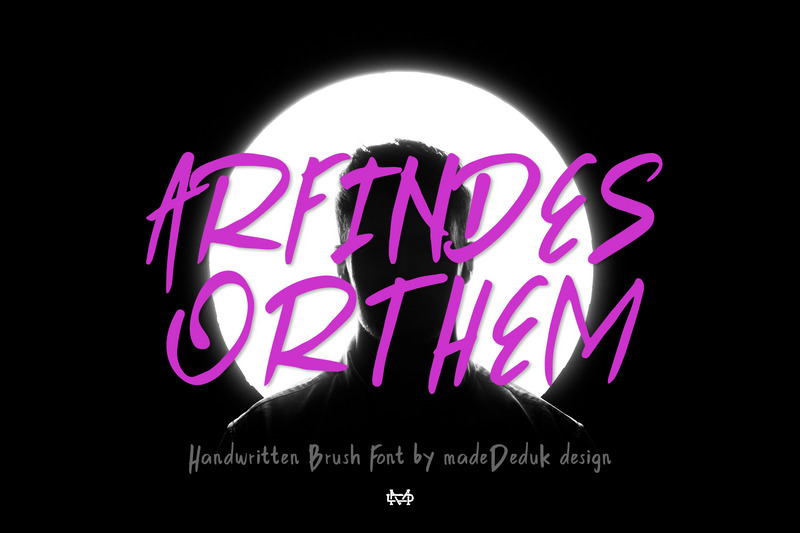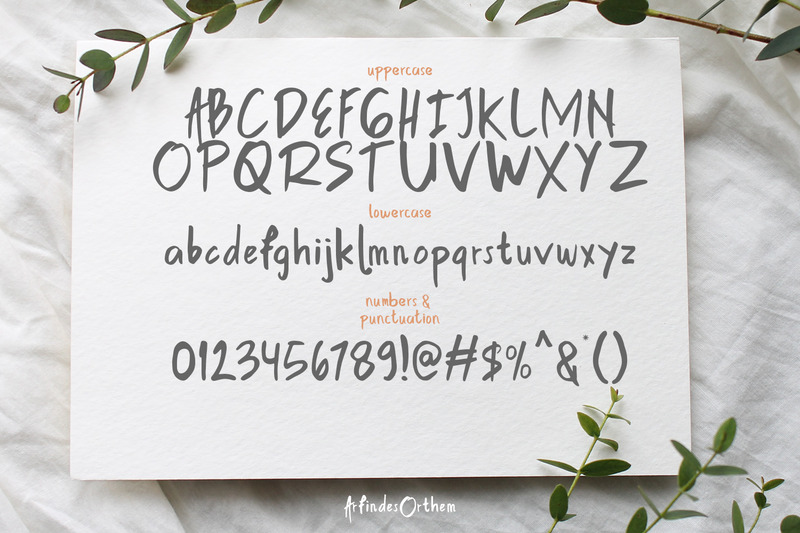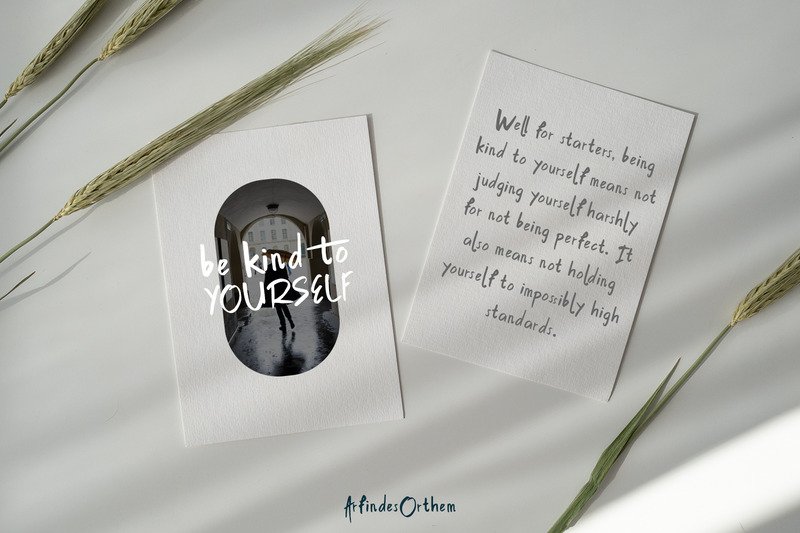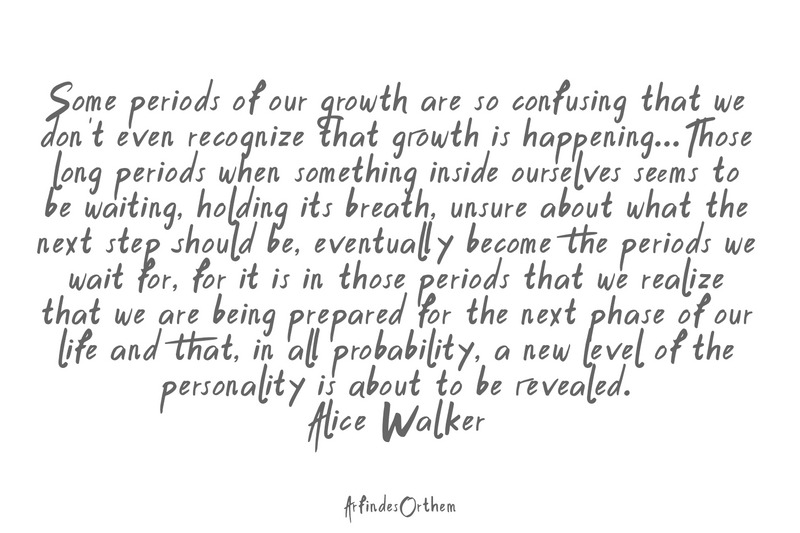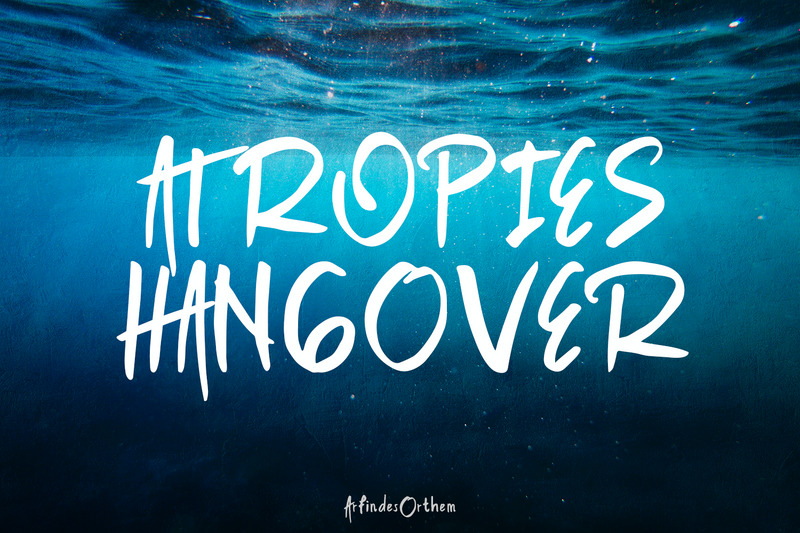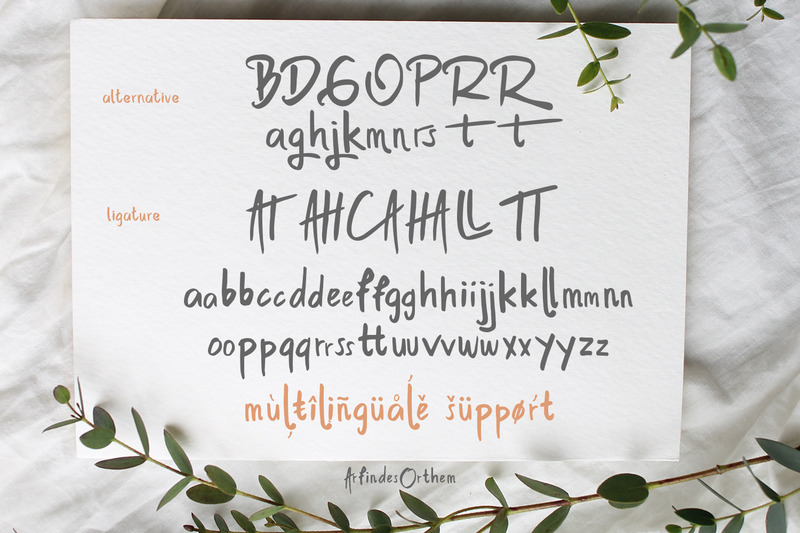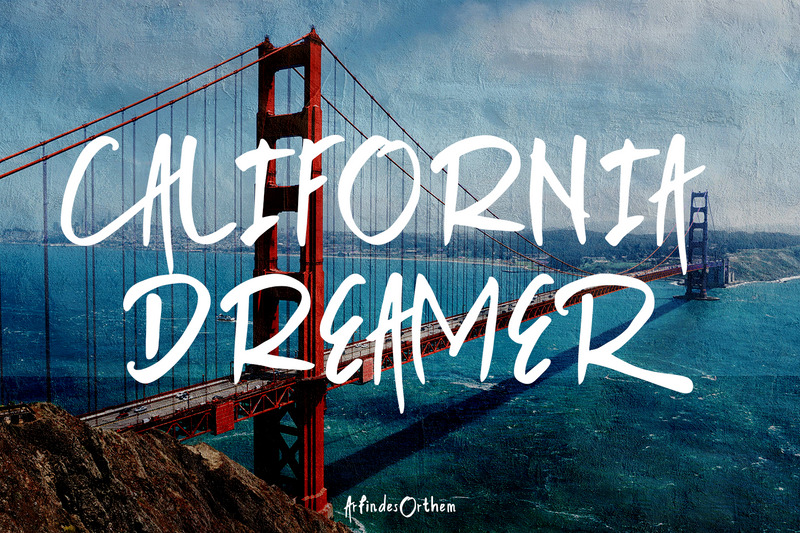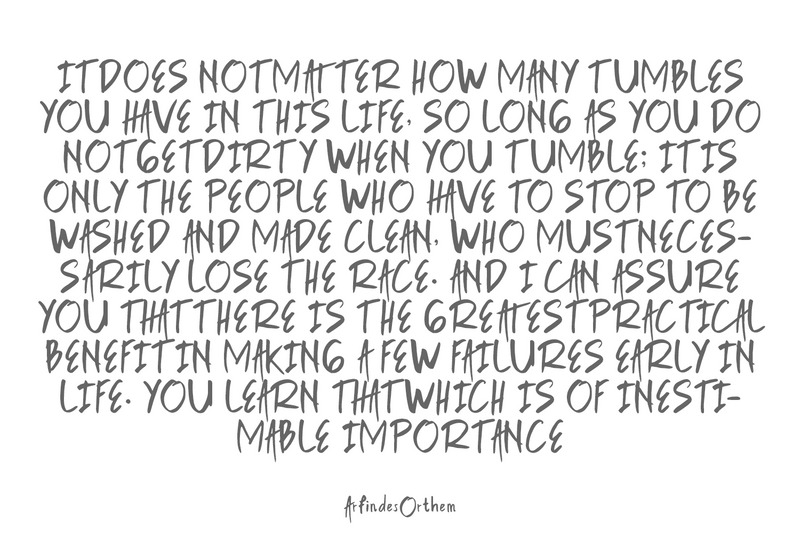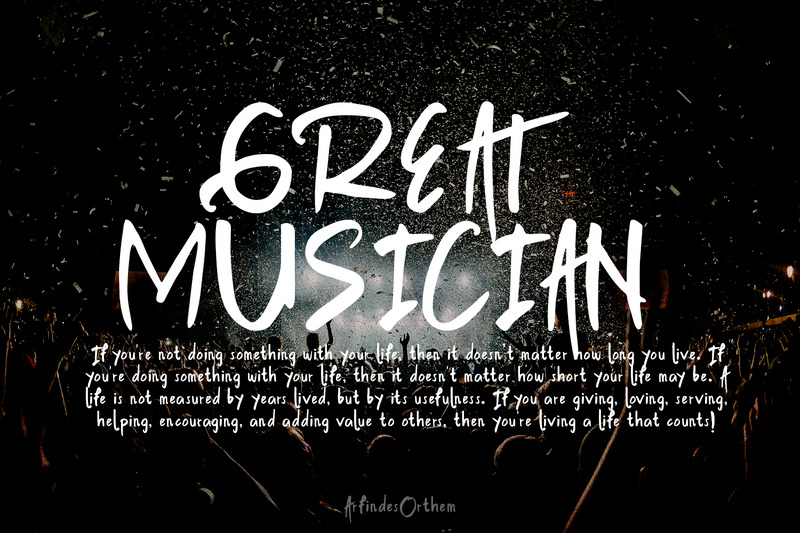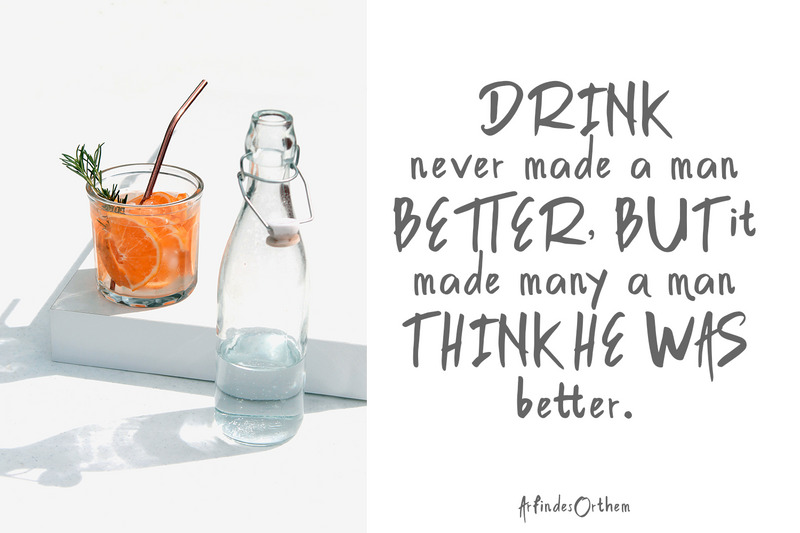
Arfindes Orthem - Script Font
Introducing Arfindes Orthem is a brush handwritten font and will be perfect for all your project design book, title branding, product packaging, invitation, quotes, label, poster, logo etc.
•  Uppercase & Lowercase
•  Number & Symbol
•  International Glyphs
•  Multilingual support
•  Alternative
•  Ligature